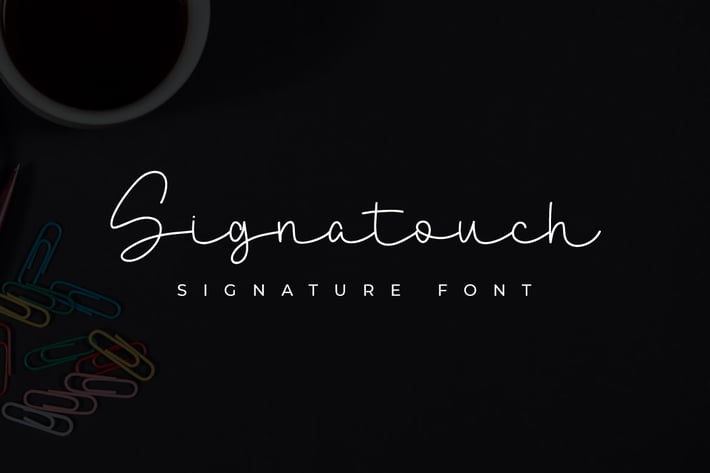
Signatouch - Signature Font
Introducing Signatouch - Signature Font. Imagine a signature handwriting font as elegant as a ballet dancer's graceful movements. Each stroke exudes sophistication and personality, capturing the essence of the writer's unique identity. The letters flow seamlessly, like ink on parchment, forming a harmonious dance of curves and loops. Delicate yet confident, this font whispers tales of timeless charm and refined taste. It's as if each letter carries a secret message, signed with the flourish of a pen, leaving an indelible mark of distinction on every page. Whether gracing wedding invitations, business cards, or personal correspondence, this signature handwriting font adds a touch of class and individuality to any design.